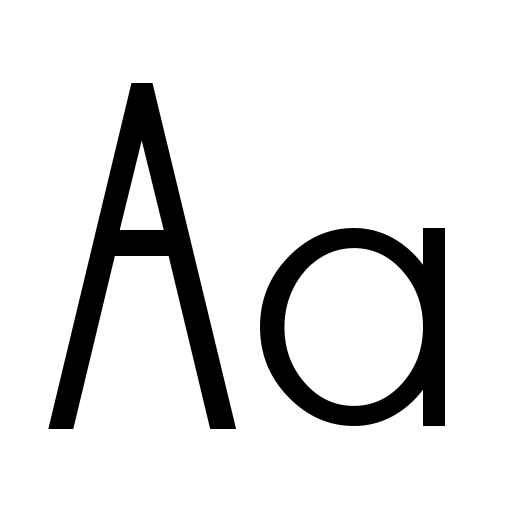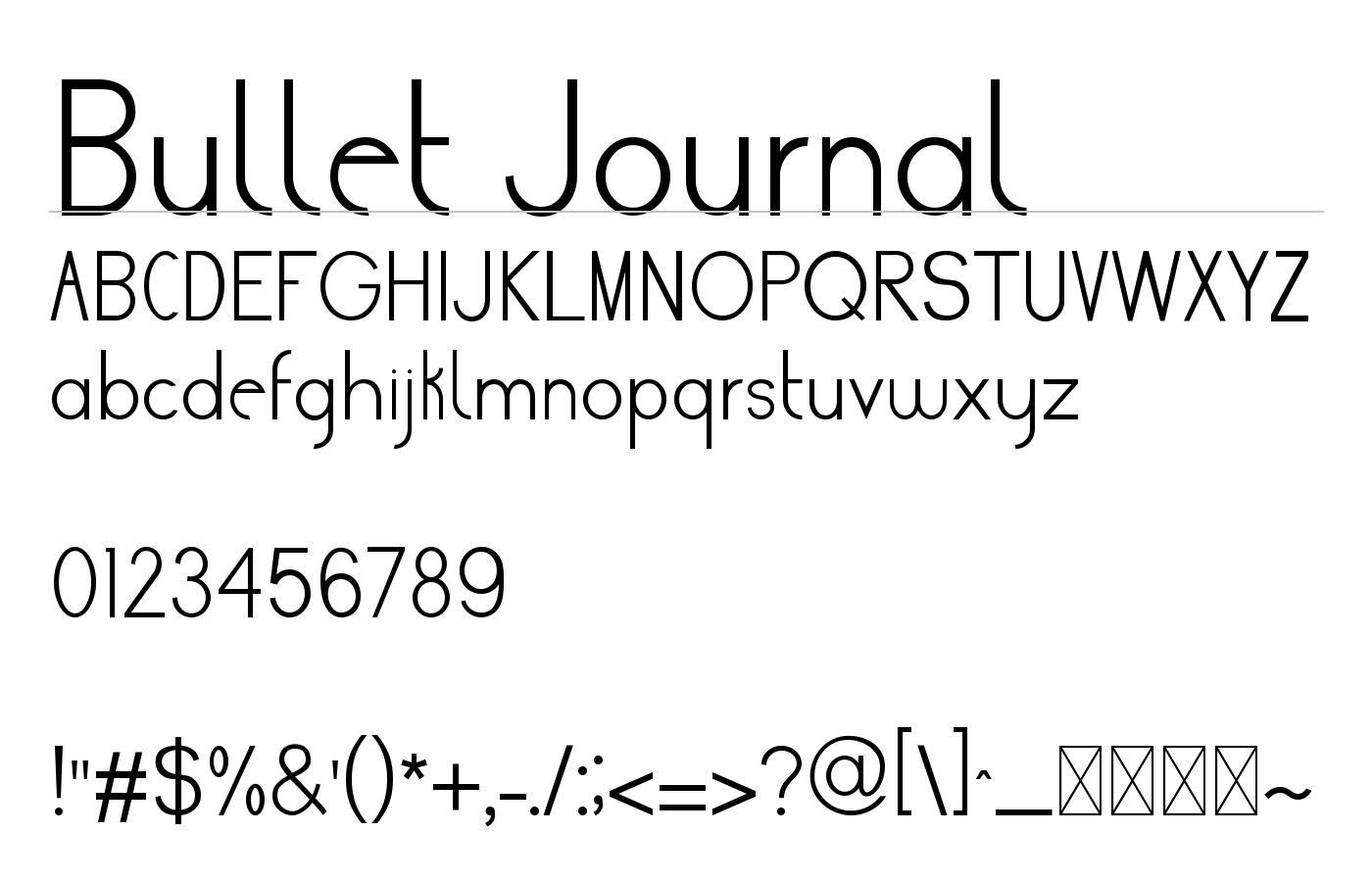
Bullet Journal Font is a sleek, modern sans serif typeface with a delicate and narrow design that conveys a clean, minimalist aesthetic. Its thin strokes and tall x-height combine to create an elegant and airy feel, making it perfect for contemporary branding, editorial headlines, and creative projects that demand a refined, stylish look. This font works especially well in settings where clarity and subtle sophistication are key, such as fashion magazines, lifestyle blogs, or minimalist packaging.
Bullet Journal Font